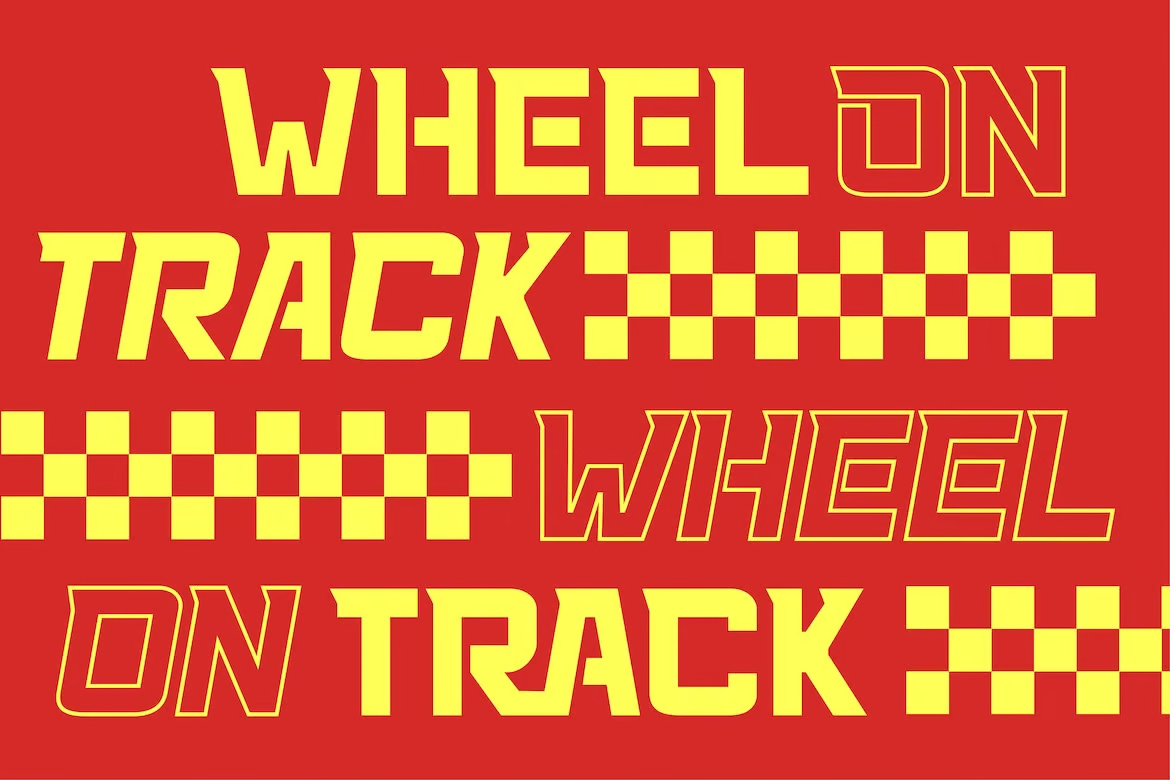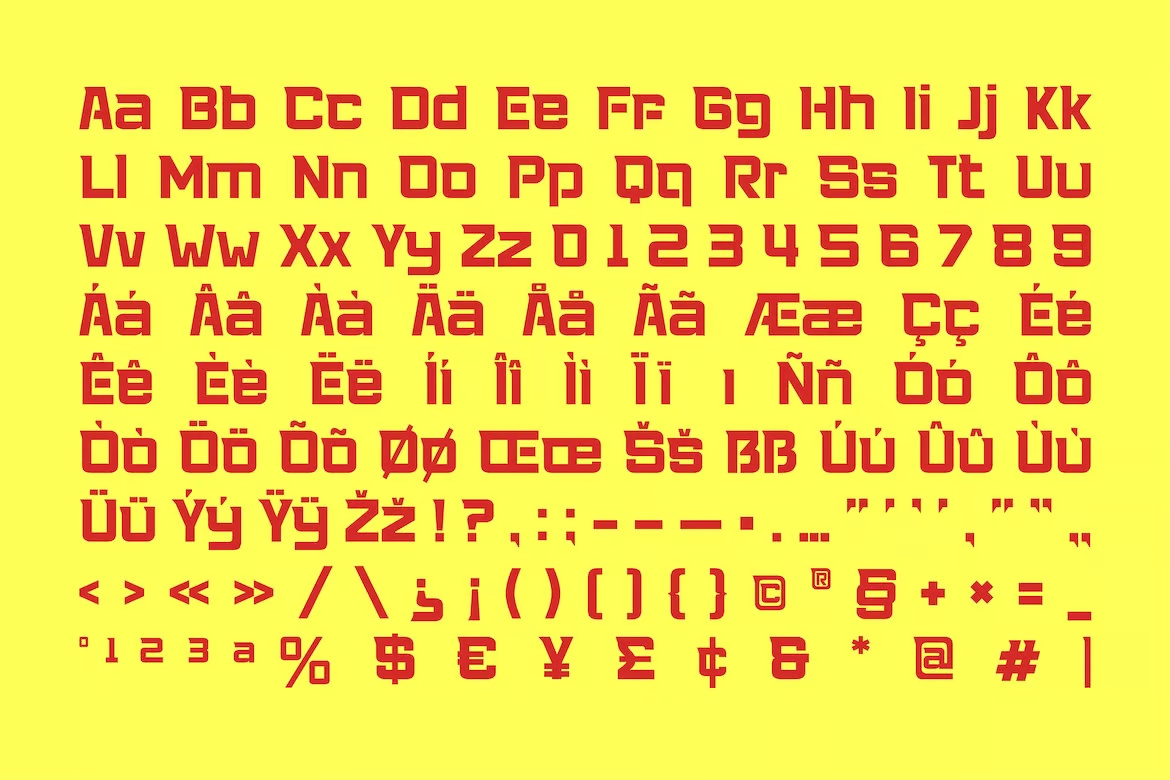
Racing 58 – Sport Racing Logo Font
Racing 58 is built for speed, power, and bold impact. Inspired by the energy of motorsports, this typeface delivers a high-speed aesthetic with slanted, aggressive shapes, aerodynamic letterforms, and a dynamic slant that commands attention. Whether it’s for race-day branding, high-octane posters, or performance-driven visuals, Racing 58 ensures your message leaves everything else in the dust.
Racing 58 – Sport Racing Logo Sans-Serif Font